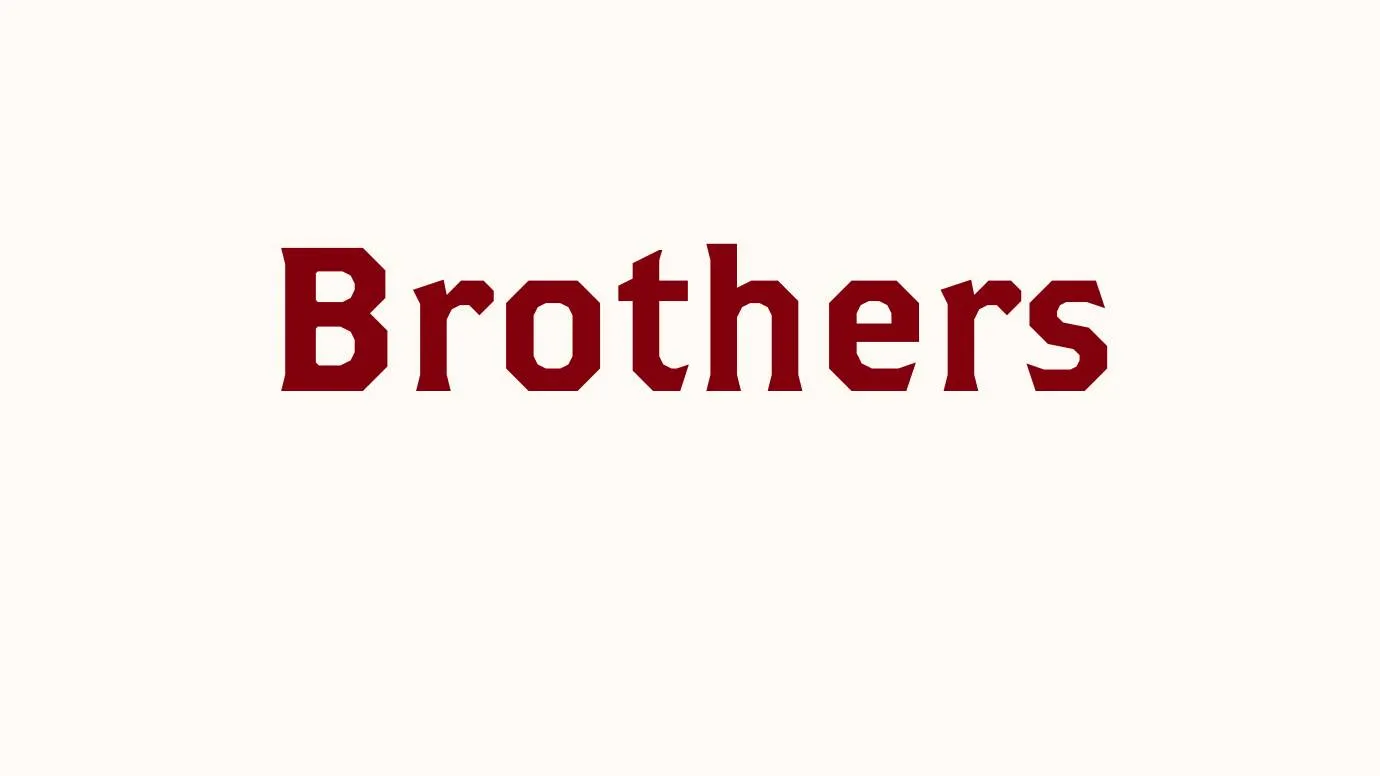
Brothers Font Family is a bold stylish typeface that John Downer designed this font in the year 1999 and was released by Emigre foundry. This typeface had been influenced by the lettering found on the Cole Brothers traveling circus shows in the early nineteenth century.
Many other typefaces can well go with this typeface such as Stratum 2 Font. Gin Font and Germania One Font are the most similar fonts to this typeface. It is best for logos, emblems, quotes, headlines, and book cover designs.